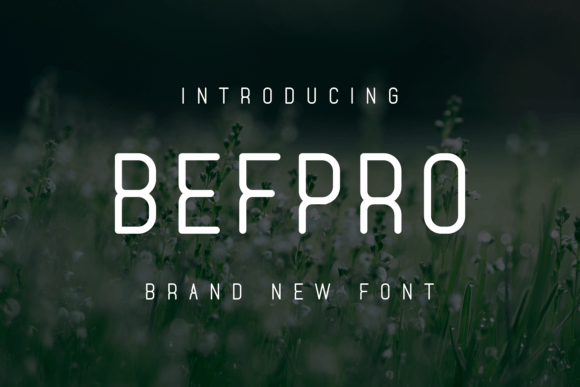
**Behold Befpro: The Font That Captures the Innocence and Joy of Babyhood**
Immerse yourself in the whimsical world of Befpro, a charming sans serif font that evokes the boundless love and pure happiness of babyhood. Each letter is meticulously crafted with a delicate touch, capturing the gentle curves and innocent charm of a baby's smile.
**A Symphony of Details, a Masterpiece of Simplicity**
Befpro's intricate details and smooth lines create a visual feast that will captivate your audience. The font effortlessly dances across your screen, enchanting you with its elegant curves and harmonious flow. Yet, despite its undeniable sophistication, Befpro retains a disarming simplicity that makes it instantly approachable.
**Unleash Your Creativity, Create Timeless Memories**
With Befpro at your fingertips, your imagination will soar as you create captivating baby-themed designs. Design heartwarming birth announcements, adorable nursery decorations, and personalized keepsakes that will be cherished for years to come. Befpro's versatility extends beyond baby-related projects, lending its playful charm to any design that seeks to evoke a sense of innocence and joy.
**Indulge in the Beauty, Embrace the Inspiration**
Befpro is more than just a font; it's an invitation to embrace the boundless possibilities of creativity. Let its gentle curves inspire your designs, and let its playful spirit spark joy in your heart. Befpro is the perfect choice for designers who seek to connect with the cherished moments of babyhood and create designs that will leave a lasting impression.